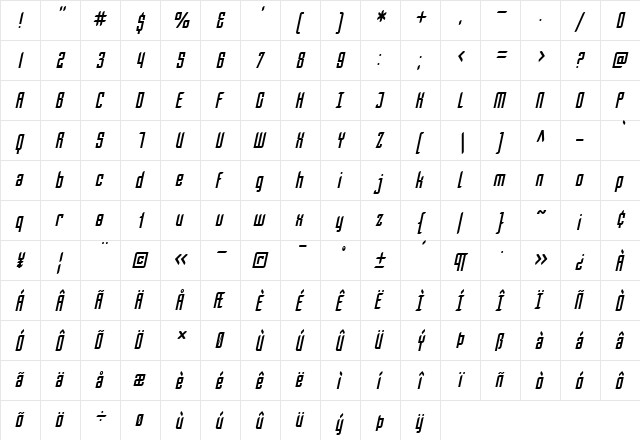
SF Piezolectric Condensed Oblique Font Preview
| Foundry | ShyFoundry |
| Designer | Derek Vogelpohl |
Design Context for SF Piezolectric Condensed Typeface
SF Piezolectric Condensed takes a measured approach to typography — its balanced proportions and neutral character make it a reliable workhorse for both digital and print work. The dynamic lean of this cut emphasises speed and emphasis in any layout. Its narrow stance lets it pack a punch even in space-constrained designs.
Pro Tip: Use SF Piezolectric Condensed for emphasis, pull quotes, and subheadings where its slanted energy can add rhythm to the layout.